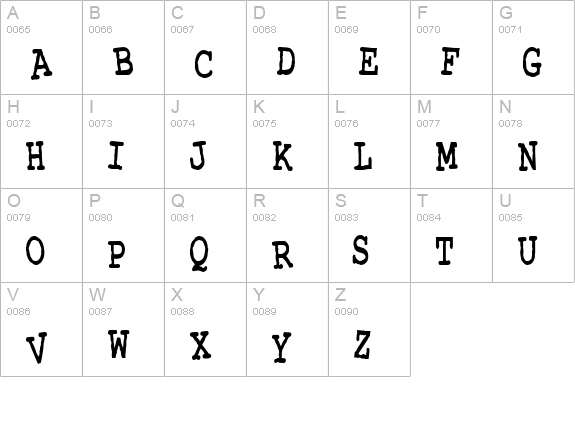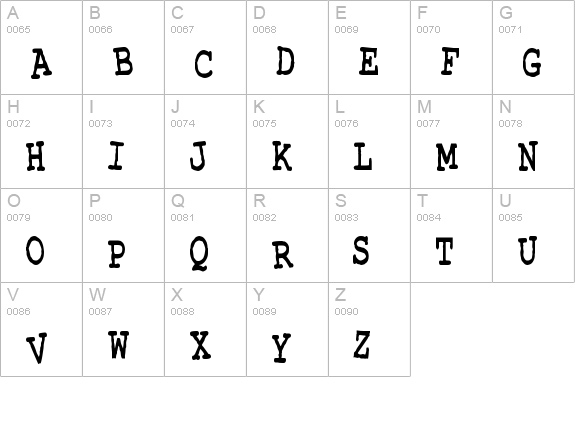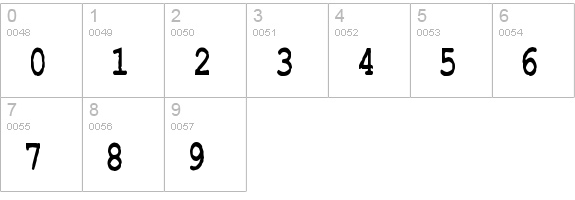
CK Corral Font Details
Introducing CK Corral font, a charming and whimsical typeface that exudes a playful and friendly vibe. This font is perfect for adding a touch of fun and creativity to your designs. With its unique character shapes and stylish curves, CK Corral font is sure to make your projects stand out. Best of all, CK Corral font is completely free to download at FontsMarket.com. Whether you're working on a poster, invitation, branding project, or any other design, this font is a versatile choice that will bring a touch of personality to your work. Don't miss out on the opportunity to add this delightful font to your collection today!